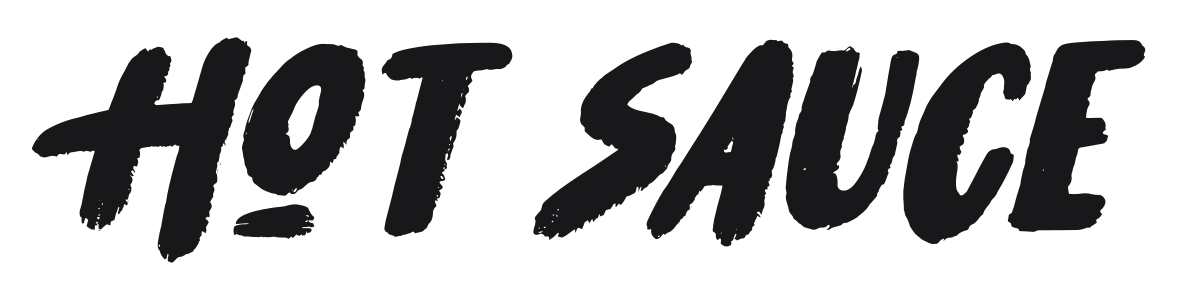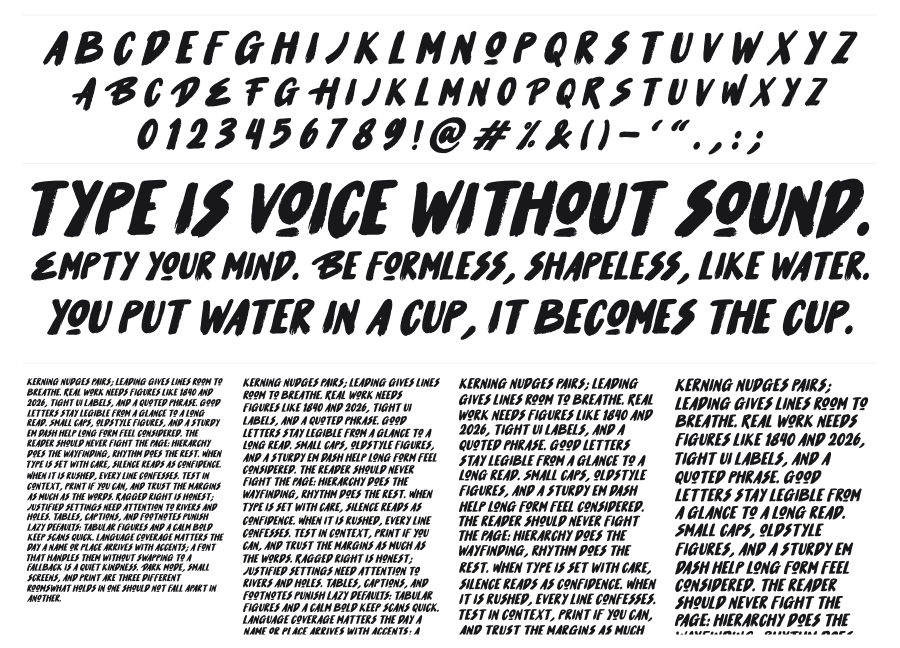
Hot Sauce
Hot Sauce is a bold, rough-edged brush script built for maximum energy. The heavy, oblique strokes carry the texture of fast hand-lettering, with ragged ink edges that give every word a raw, spontaneous feel. It works hard on packaging, posters, and anywhere a design needs to shout.